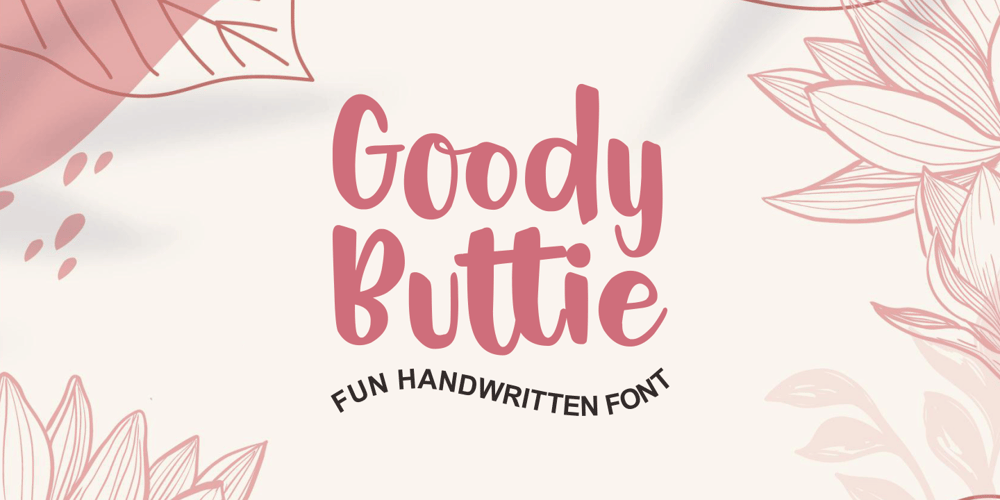
Goody Buttie Font Family was designed by Zamjump and published by Zamjump. Goody Buttie contains 1 styles and family package options. Hello goody butty is a laid-back, casual paint brush handwriting font. Whatever the topic, this font will be a wonderful asset to your font library, as it has the potential to enhance any creation.Included uppercase and lowercasemulti languageligature